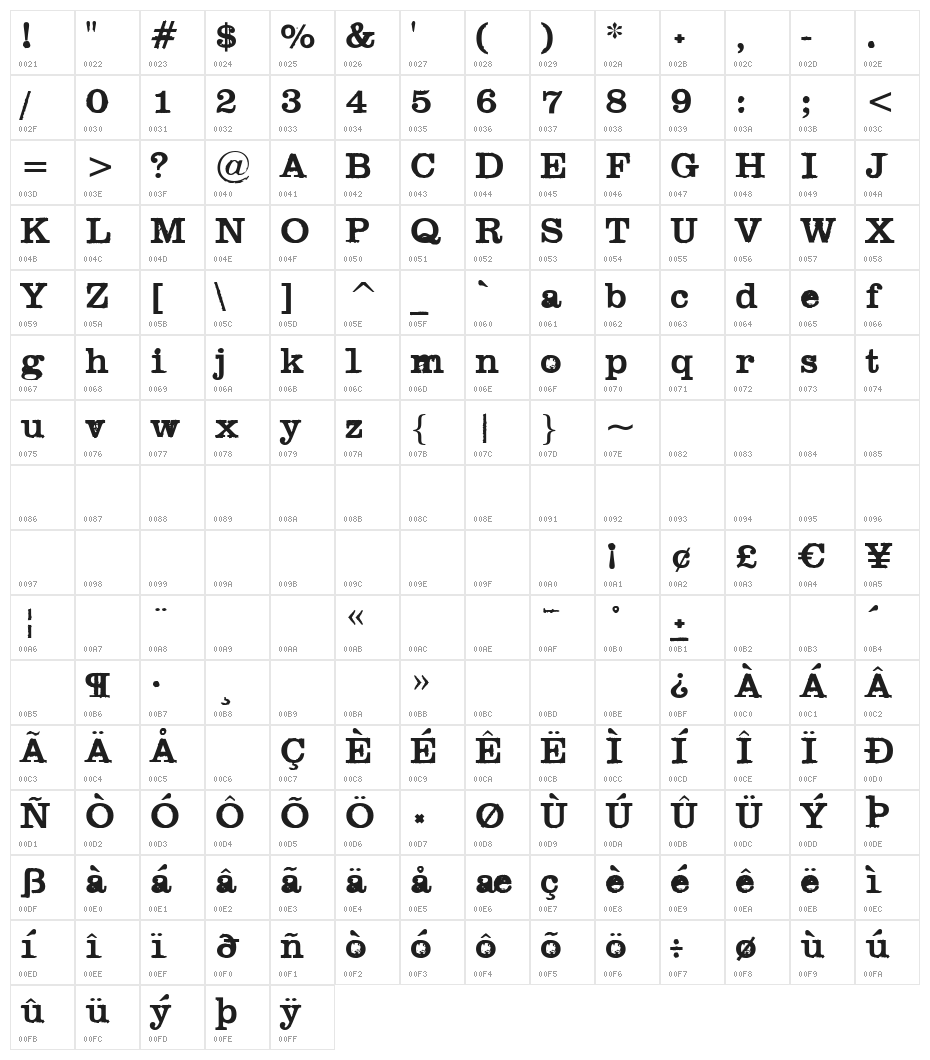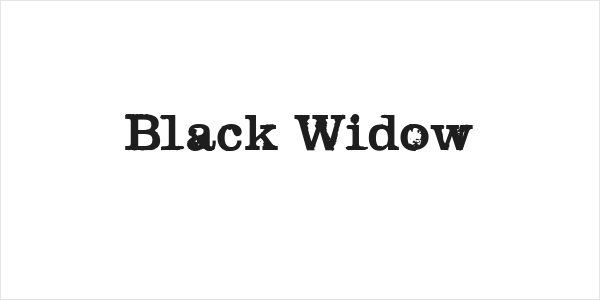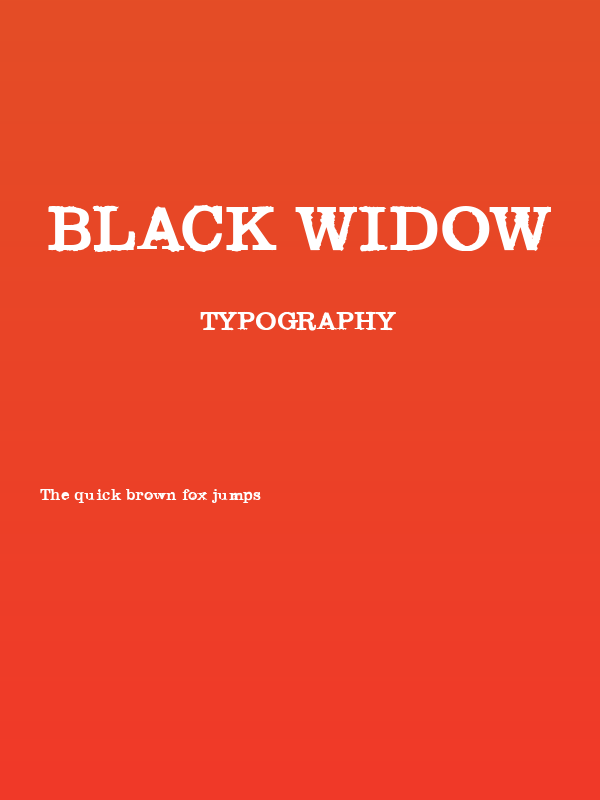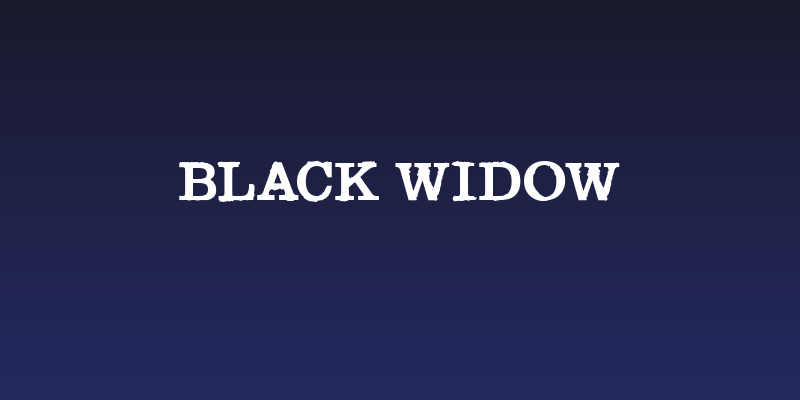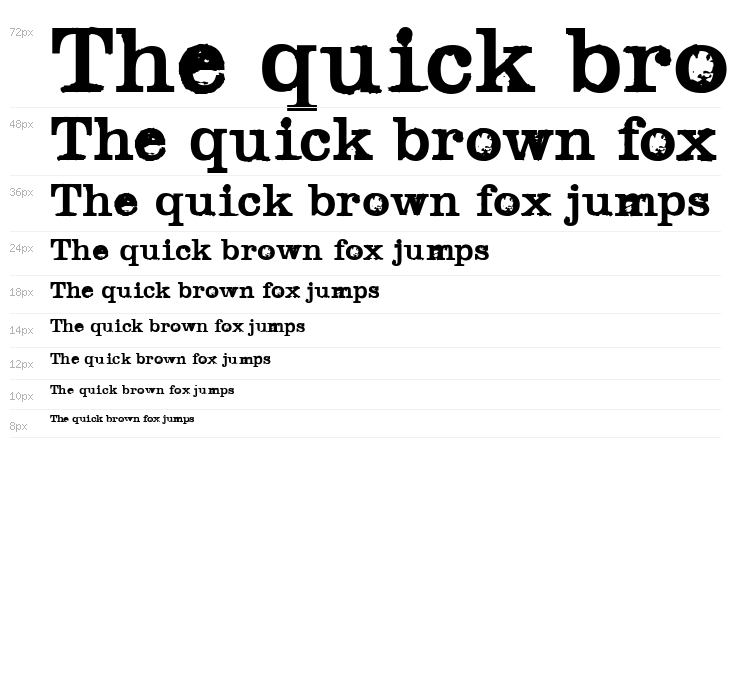
Black Widow Font
Black Widow Description
This font features a bold and rugged style with a distressed, textured appearance that gives it a vintage and worn look. The uppercase and lowercase letters are consistent in their boldness, creating a strong visual impact. The numbers and special characters maintain the same distressed style, adding to the overall cohesive design. The font's unique texture makes it stand out, providing a sense of character and history. It is ideal for projects that require a bold statement or a retro feel, such as posters, branding, or packaging.
| Proposed Projects | Ideal for posters, branding, packaging, and any project needing a bold, vintage look. |